Block fonts have taken the design world by storm. Whether you’re working with a block letters font for a headline, a block font for a poster, or a block letter font in your logo design, these fonts add a dynamic presence to your projects. Here, we’ll explore some of the best block fonts available and discuss different font styles, from serif font variations to sans serif options. Let’s see how they work across mediums like embroidery fabrics, web fonts, and even craft fabrics.
Overview Of Block Fonts
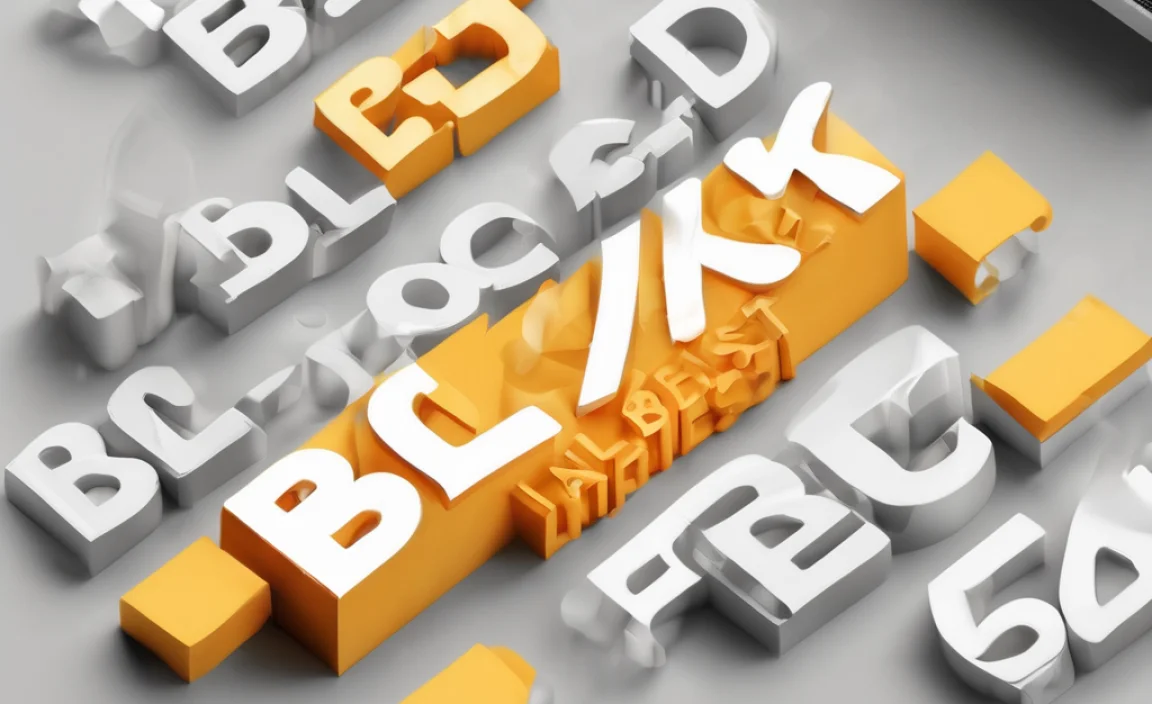
Block fonts are defined by their bold, thick strokes and clean typography. Their distinct letter forms and text structure make them ideal for headlines, signage, and header designs. They’re versatile enough to be found in font packs on sites like Envato Elements, and they often include both uppercase letters and lowercase letters along with unique glyphs and character sets.
Many designers use tools like Adobe Illustrator to fine-tune their font style choices, ensuring the block design remains legible at various sizes. Whether you need a blocky fun display font for music patches, a logo design, or even patriotic patches for embroidery threads and embroidery fabrics, there’s a unique font out there to suit your needs.
Top Block Fonts Reviewed
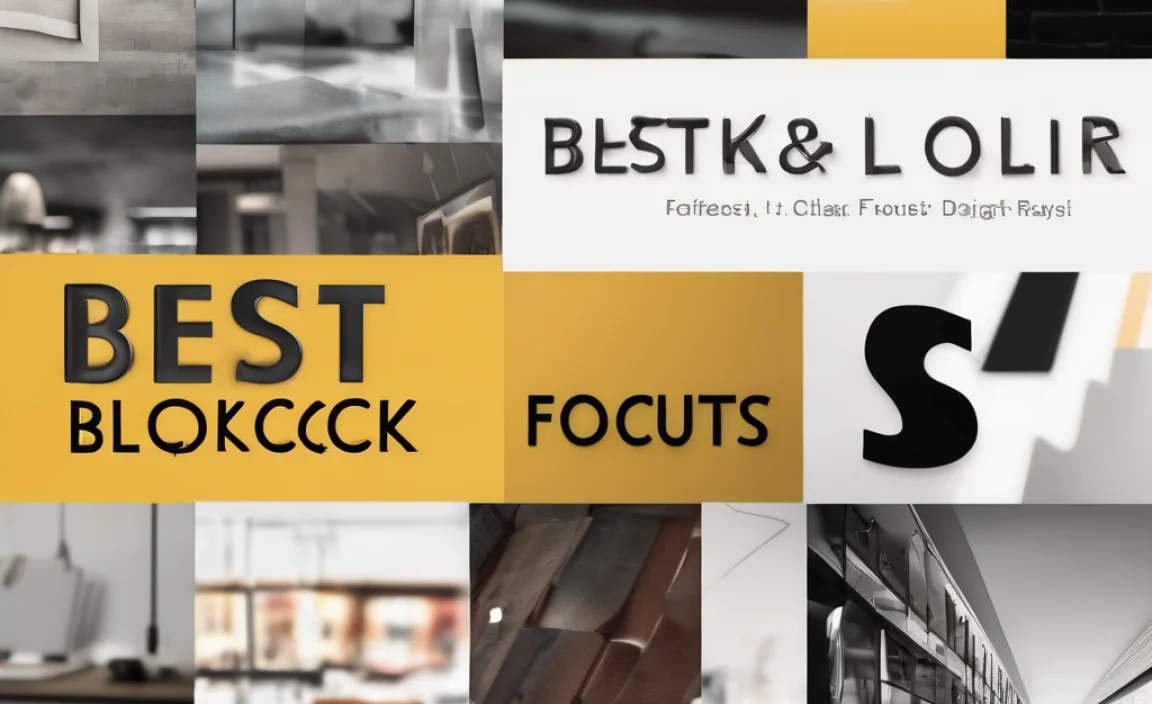
Below are a few standout block fonts, complete with insights on their font family, styles, pairing options, and where they work best.
1. Impact
Overview:
Impact is a classic bold font that has defined the look of block letters font for decades. It features thick strokes and a block font style that commands attention in any poster or signage design.
Details:
- Designer: Geoffrey Lee
- Styles: Regular, italic variations with robust uppercase characters and legible lowercase letters.
- Pairing Options: Pairs well with softer serif font options like Times New Roman for body text, creating a striking contrast between headline and paragraph.
- Pros: Highly legible from afar, great for headings, logos, and header designs.
- Cons: Can be overpowering in extended paragraphs; best used sparingly.
- Usage: Ideal for logo design, poster, web fonts, and even embroidery fonts on quilting fabrics or craft fabrics.
2. College Block
Overview:
The college block style font embodies a sporty, robust aesthetic reminiscent of vintage athletic uniforms. This block letter style is perfect when a design demands a collegiate and authoritative look.
Details:
- Designer: Often featured in custom font packs and available on platforms like Envato Elements.
- Styles: Available in both sans and serif variations, offering flexibility in typography.
- Pairing Options: Complements lighter sans serif fonts or even the traditional Times New Roman to balance a design’s visual weight.
- Pros: Striking, versatile, and well-suited for headlines, logos, and signage.
- Cons: Limited in terms of multilingual support compared to more modern web fonts.
- Usage: Excellent for embroidery fabrics and patriotic patches, as well as music patches and craft projects.
3. Blocky Fun Display
Overview:
For a more playful take on block typography, the blocky fun display font brings a fresh twist to block fonts. Its quirky, geometric shapes make every letter stand out.
Details:
- Designer: Emerging designers often offer these on marketplaces, and it’s also found in curated font packs.
- Styles: Features a variety of block font styles with both uppercase letters and stylized lowercase letters that emphasize a modern, geometric shape.
- Pairing Options: Pairs beautifully with minimalist sans serif fonts to create a balanced, contemporary design.
- Pros: Unique, eye-catching, and perfect for creative logo design and headings.
- Cons: Its distinct style might clash with formal documents; best for informal projects.
- Usage: Ideal for poster designs, embroidery threads on embroidery fabrics, and even on quilting fabrics for a craft-inspired look.
Enhancing Your Design with Block Fonts
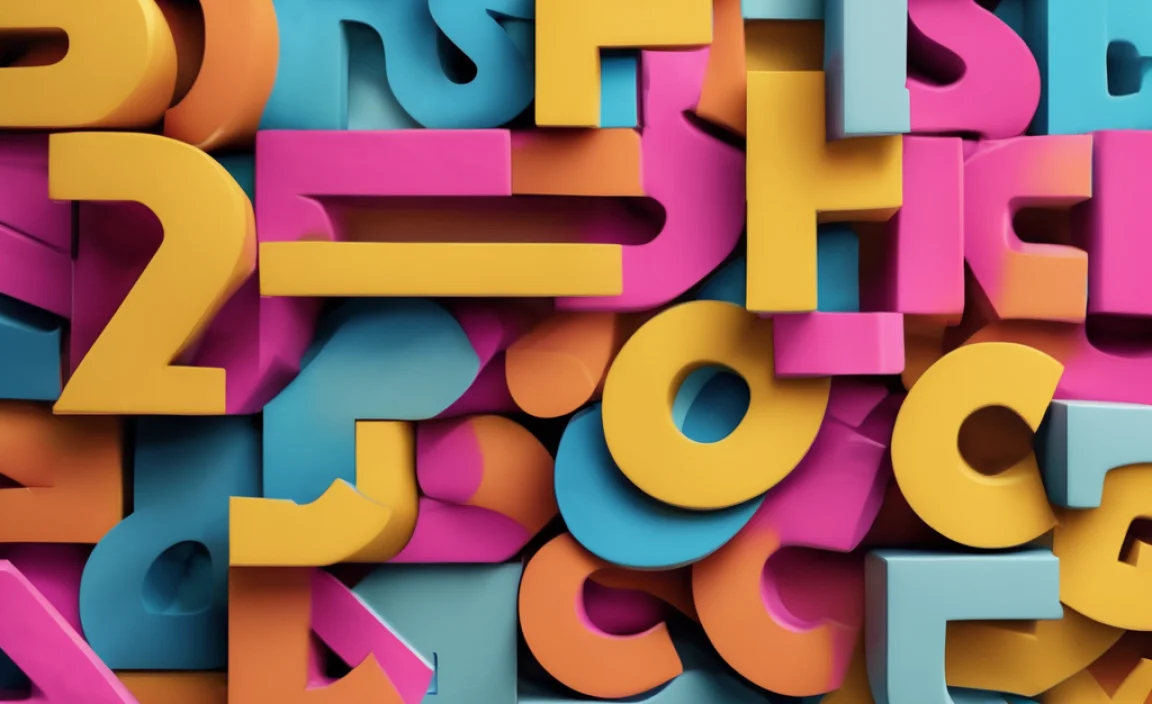
When selecting the right block font for your project, consider the overall font style and how it meshes with your project’s purpose. Use Adobe Illustrator to tweak designs, whether you’re adjusting glyphs for a unique font or experimenting with uppercase letters and lowercase letters for headings and logos.
Block fonts work well with different fonts when paired correctly. For example, combining a sans block font with a delicate serif font can create visual contrast, while a college block paired with a traditional Times New Roman offers both modern appeal and classic readability.
Additionally, block fonts are versatile enough for various applications:
- Web fonts: Ensure legibility on digital platforms.
- Embroidery fonts: Ideal for use with embroidery fabrics and embroidery threads to create standout designs on patriotic patches or craft fabrics.
- Logo design: The bold, clear strokes are perfect for creating memorable logos and headings.
Are Block Fonts Suitable For Multilingual Support?
Some block fonts offer robust multilingual support, but check individual font details.
What Are The Pros Of Using A Blocky Fun Display Font?
It offers a unique and playful style, ideal for creative projects that require a standout look.